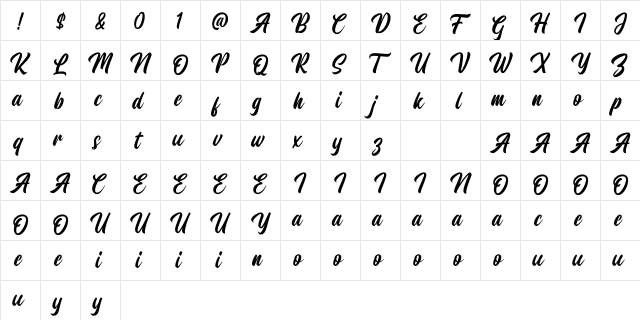
Monteners Script Demo
Design Context for Monteners Script Typeface
Monteners Script flows with the natural rhythm of handwritten lettering, making it ideal for designs that call for warmth and personal expression.
Font Pairing: Combine Monteners Script with a simple geometric sans for maximum contrast — the tension between flowing curves and clean structure is a classic typographic pairing.
Pro Tip: Pair Monteners Script with a clean sans-serif for supporting text. The contrast between fluid script and geometric structure creates an elegant typographic hierarchy.